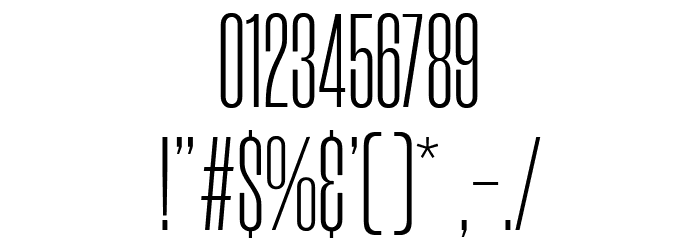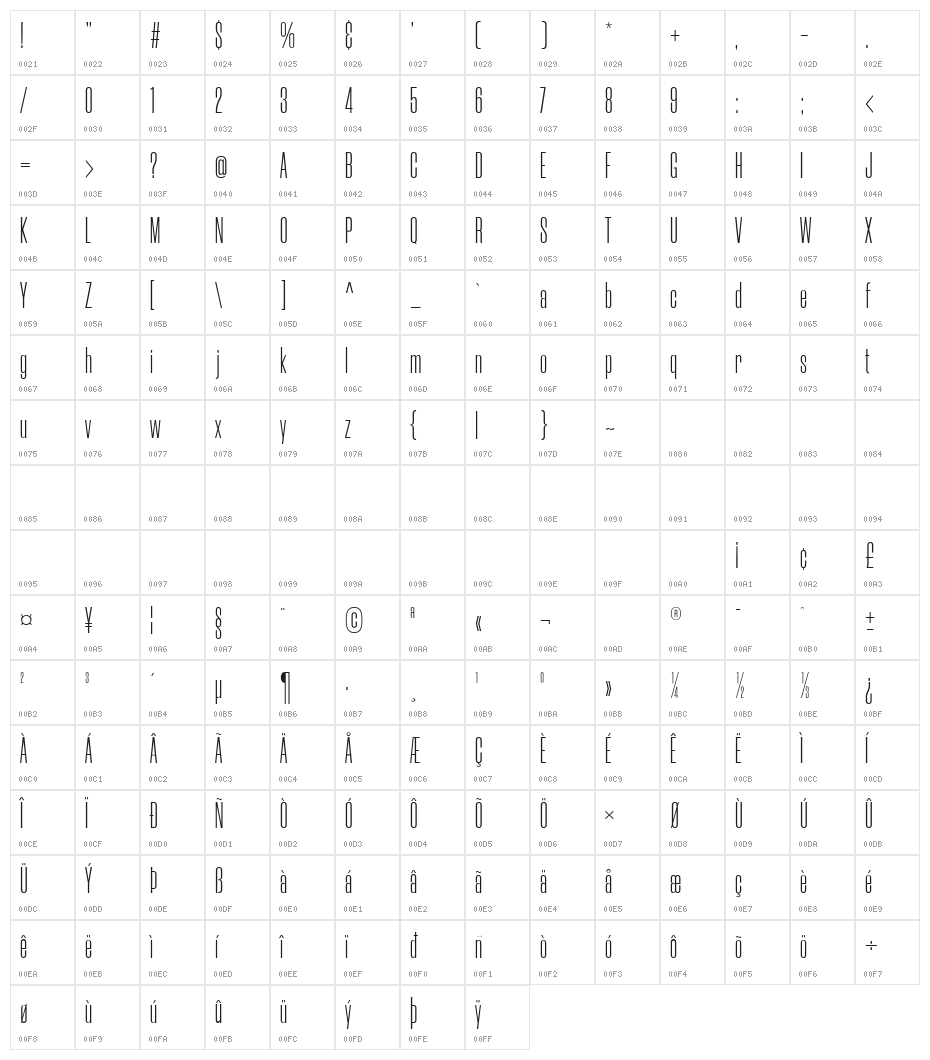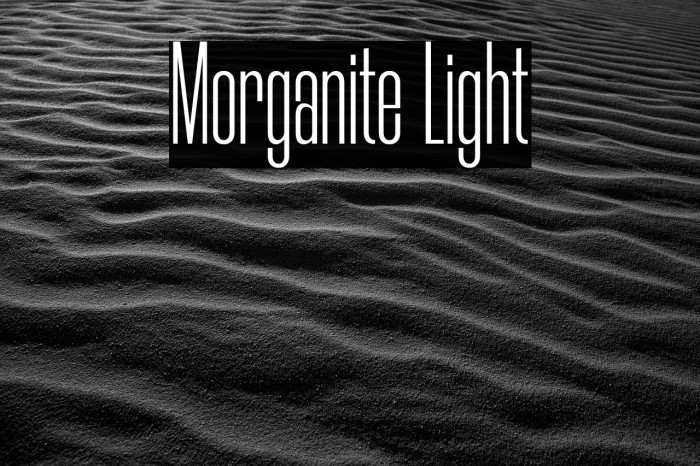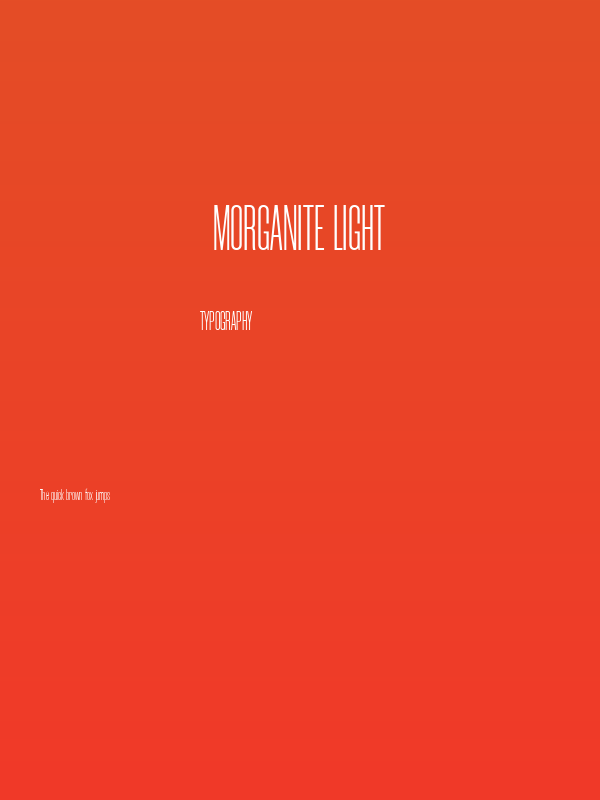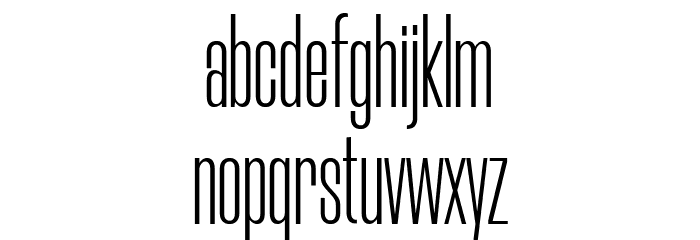
Morganite Light Font
Morganite Light Description
This font features a sleek and modern design with tall, narrow characters that convey a sense of elegance and sophistication. The uppercase letters are particularly elongated, giving a refined and stylish appearance. The lowercase letters maintain a consistent height, complementing the overall vertical emphasis. Numbers and special characters are designed with the same narrow proportions, ensuring uniformity across all text elements. The font's clean lines and minimalistic style make it versatile for various design applications.